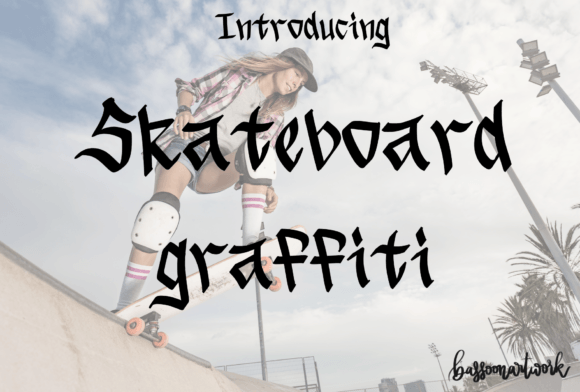
Unleash your creative spirit and let the streets speak with Skateboard Graffiti Font – a captivating blackletter font that oozes urban grit and artistic flair.
Dive into the vibrant world of graffiti culture with this edgy font, inspired by the raw energy of street art. Its bold lines and sharp angles emanate a sense of rebellion, while the intricate details and playful curves add a touch of whimsy and personality.
Whether you're a seasoned designer or a budding artist, Skateboard Graffiti Font provides the perfect canvas for expressing your unique vision. Its versatility knows no bounds, allowing you to create eye-catching designs that resonate with a youthful and vibrant audience.
From custom t-shirts and mugs to eye-catching pillows and key chains, Skateboard Graffiti Font transforms ordinary objects into artistic masterpieces. Its bold and expressive strokes bring life to your creations, adding a touch of urban chic to any space.
Join the skateboarding revolution and let your designs ride the waves of creativity. Skateboard Graffiti Font is the ultimate tool for capturing the spirit of the streets and translating it into stunning visual masterpieces.
Immerse yourself in the world of urban art with Skateboard Graffiti Font, your passport to creative freedom and artistic expression.